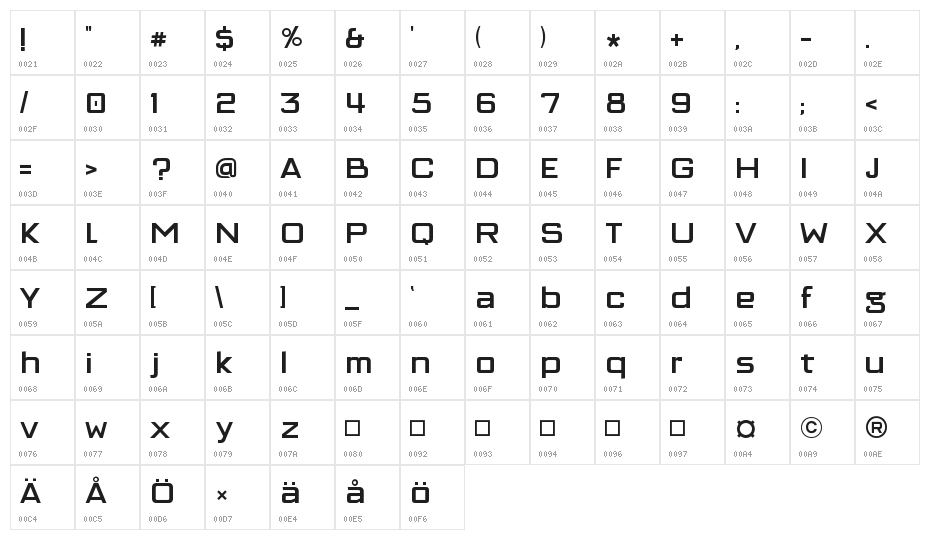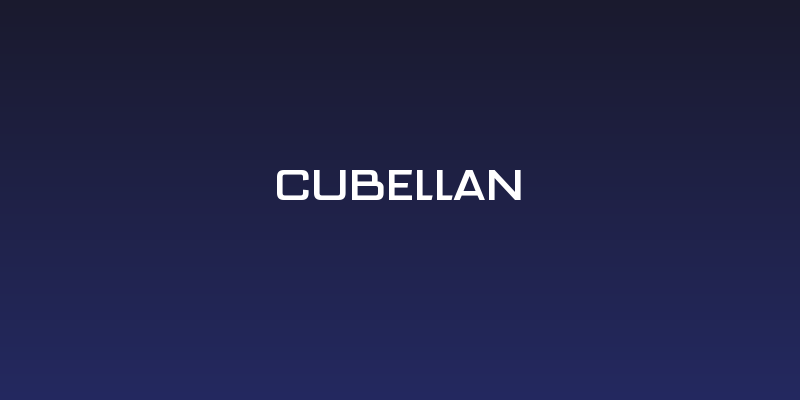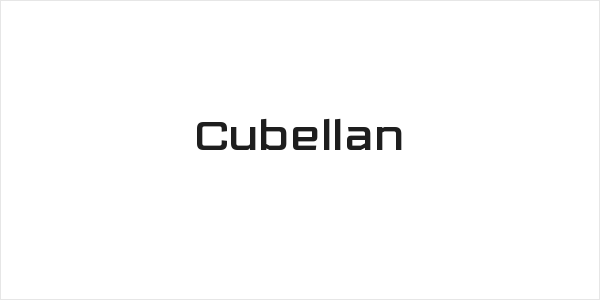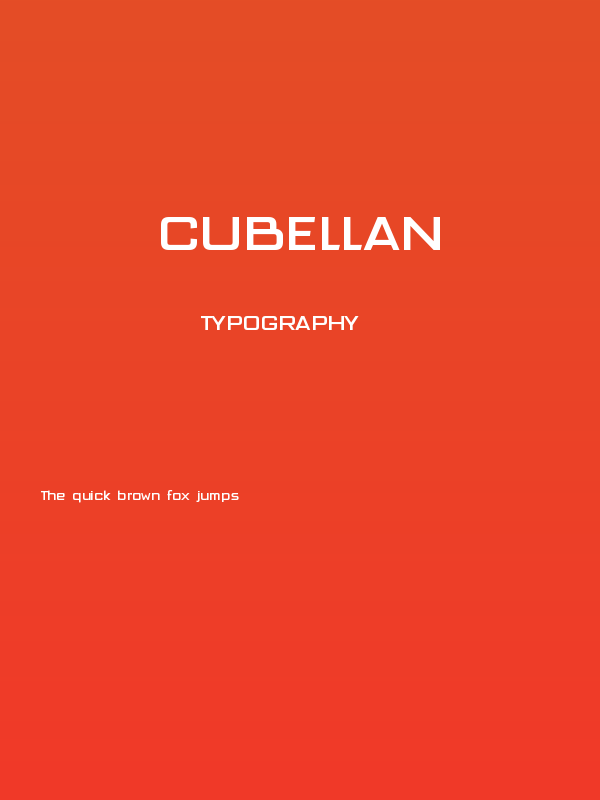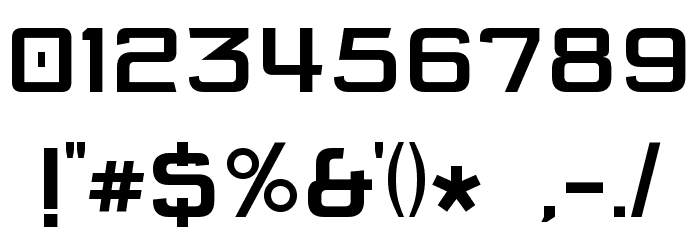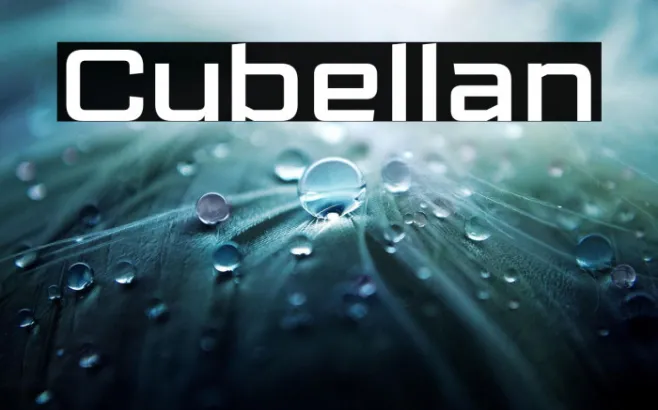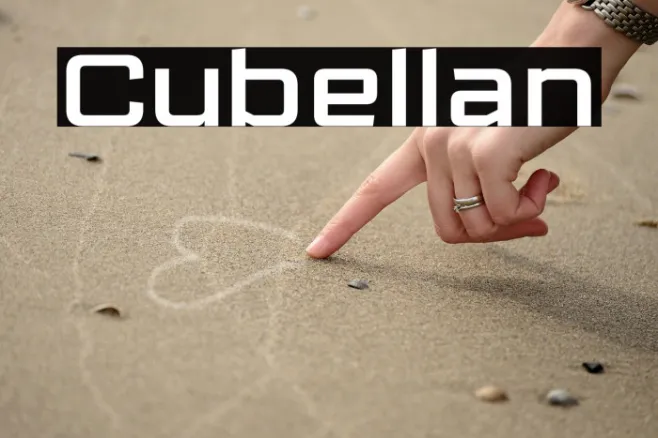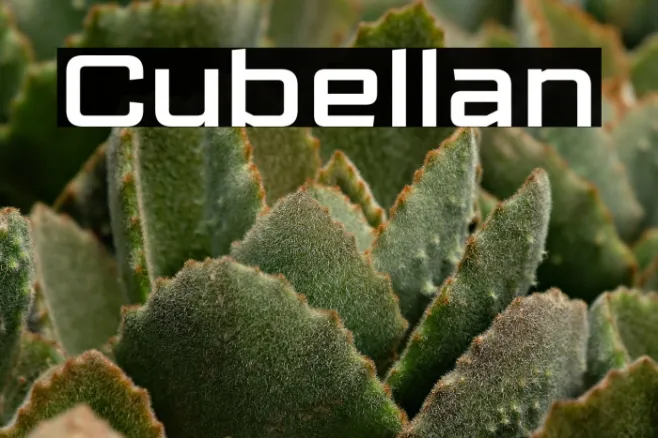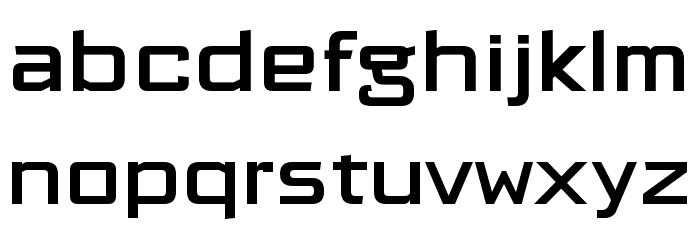
Cubellan Font
Cubellan Description
This font features a modern and sleek design with a geometric structure. The characters are uniform and balanced, with a consistent stroke width that gives it a clean and professional appearance. The uppercase letters are bold and impactful, while the lowercase letters maintain a similar width, ensuring readability. The numerals are clear and distinct, making them suitable for various applications. Special characters are well-defined, adding versatility to the font. Overall, the font's design is contemporary, making it suitable for digital and print media.